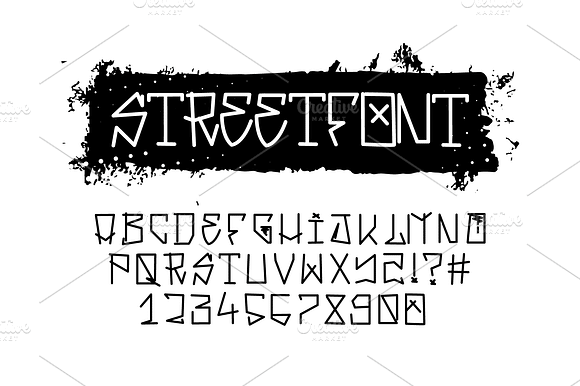
Graffiti Font. Street Tag Alphabet
Street font, graffiti alphabet. Vector Handwritten typography. Urban tag font, street tags, trendy street symbols and numbers, gangster tags. Vector isolated set. 100% Vector
Graffiti Font. Street Tag Alphabet by SergeyBitos fits naturally into Branding, posters, packaging, typography.